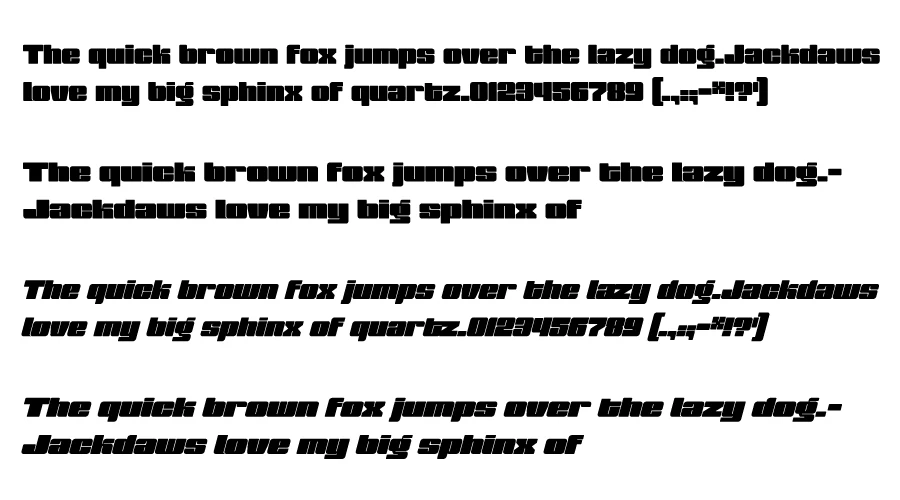
Muscle is a Display typeface font designed by Neil Summerour and published through Positype. Neil Summerour is a type designer based in Georgia, the USA with one foot in Takamatsu, Japan. He’s published over 60 typeface families (that’s over 500 fonts) and produced numerous custom typefaces for clients worldwide. With 516 glyphs and 4 styles, Muscle font is very much attractive and eye-catching. It came from the original sketches for Sneakers.
| Name | Muscle Font. |
| Style | Display |
| Author | Neil Summerour, Positype. |
Font Family
- Muscle Narrow.
- Muscle Narrow Italic.
- Muscle Wide.
- Muscle Wide Italic.
What type of font is Muscle Font?
Ans: Muscle is a Display typeface font designed by Neil Summerour.